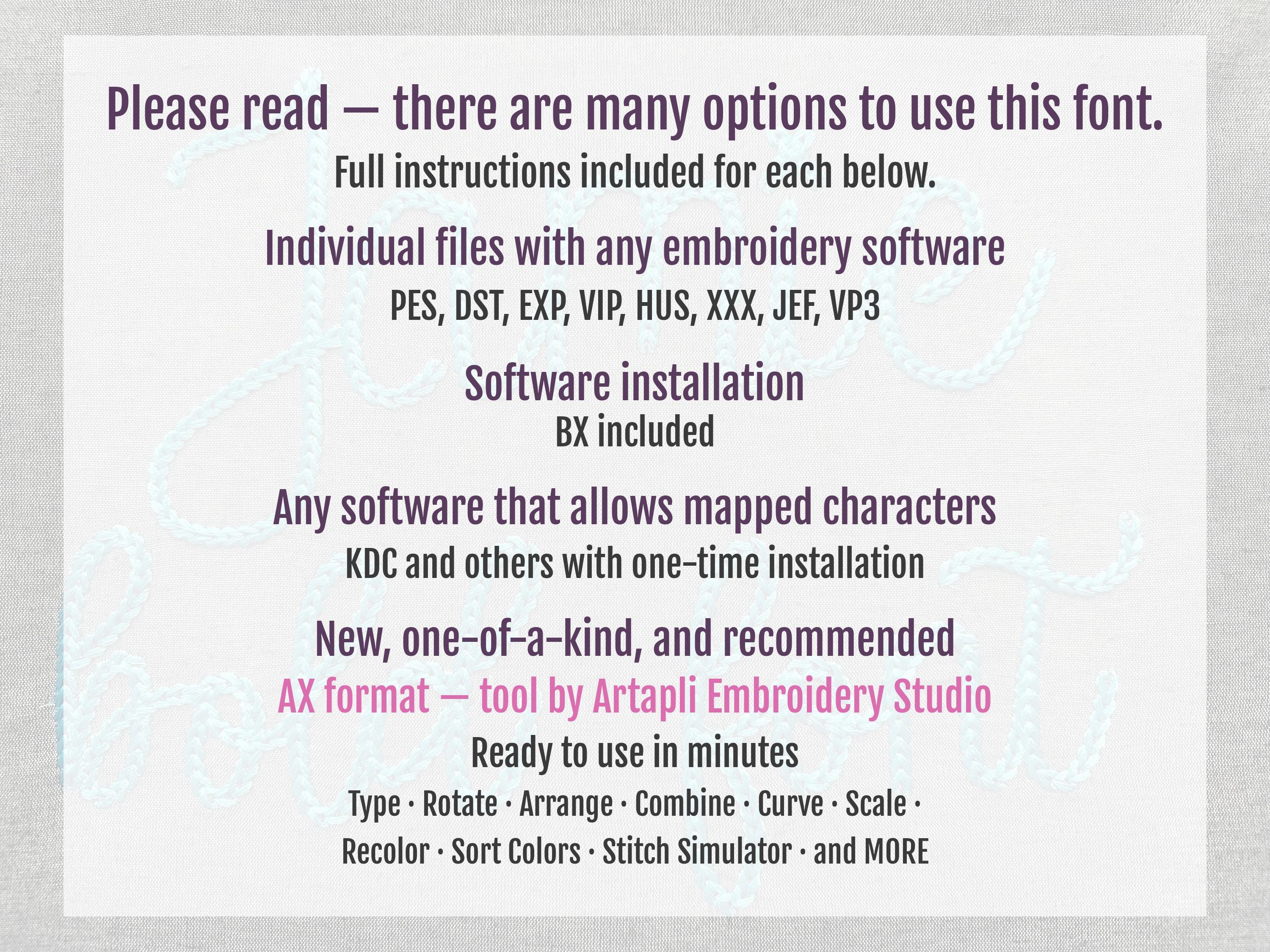
Bold Chain stitch FONT Dense chain machine embroidery designs in alphabet letters knit sweater handmade effect chain name, BX included
Entire alphabet uppercase and lowercase letters, numbers, and punctuation.
Love love love this design! Stitch count will go up a lot! But the quality is really good :)